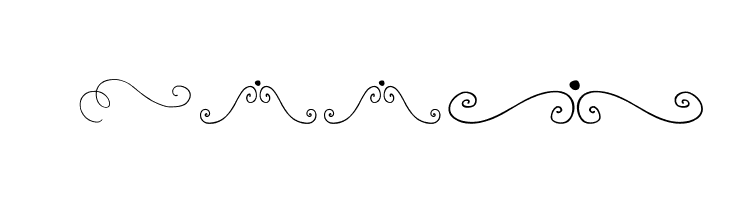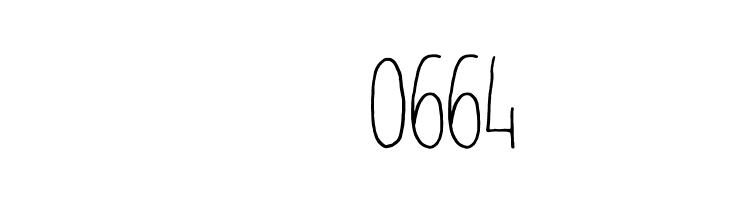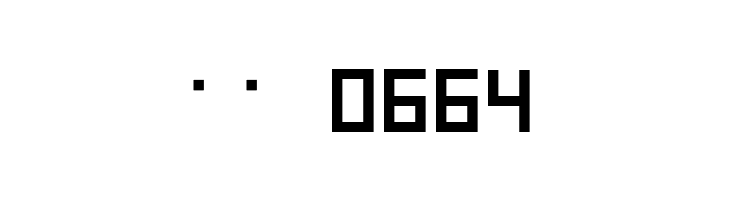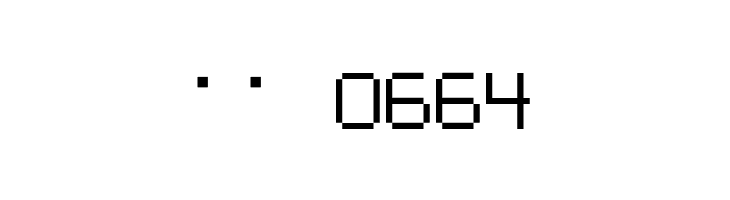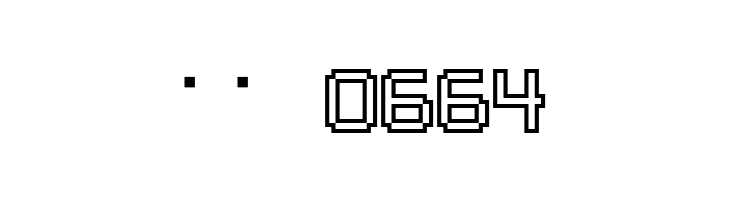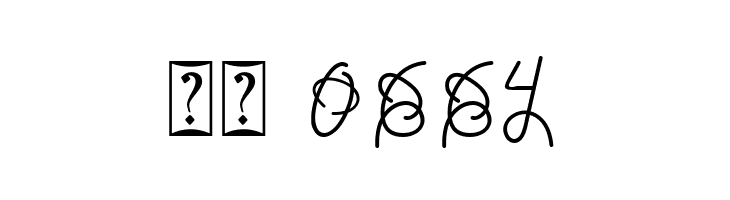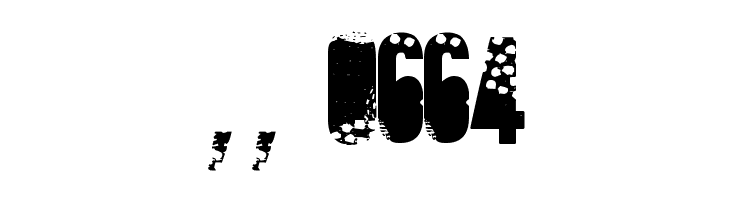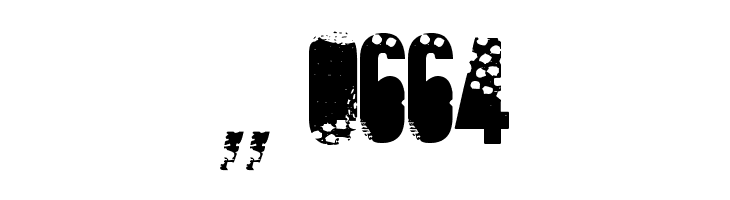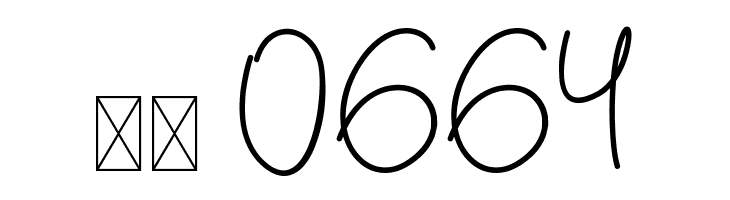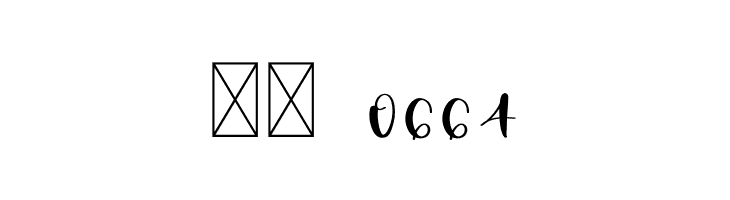
A whimsical, hand-drawn font with tall, slender letters and playful decorative elements.
A bold, geometric font with a pixelated, digital aesthetic.
An elegant, intricate script font with flowing, interconnected letters.
A bold, geometric font with tall, blocky letterforms.
A playful, cat-themed decorative font with hand-drawn charm.
A playful and elegant handwritten font with flowing curves and decorative swashes.
A tall, narrow font with Art Deco influences, featuring geometric and elegant styling.
A tall, narrow font with tight spacing and uniform stroke width.
A modern, geometric font with tall, narrow letterforms and a clean aesthetic.
A tall, narrow font with low contrast and tight spacing, ideal for modern designs.
A tall, condensed font with sharp, angular edges and a vintage-modern style.
A tall, narrow font with a distressed, vintage texture.
A playful and elegant handwritten font with fluid strokes.
A flowing, cursive font with a handwritten, elegant style.
A tall, narrow, hand-drawn font with a whimsical and playful aesthetic.
A playful, hand-drawn font with tall, narrow characters and a bold, quirky style.
Whimsical hand-drawn doodle extras with a playful, sketchy style.
A modern, elegant font with tall, slender uppercase characters.
A bold, distressed font with a textured, eroded appearance.
A bold, serif font with a traditional yet modern style, ideal for headlines.